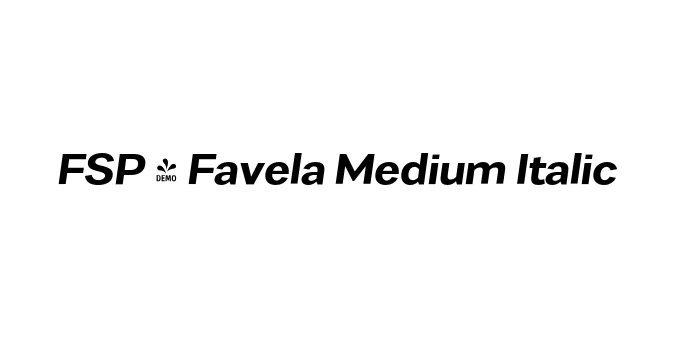
FSP - Favela Medium Italic
Designed by Mateusz Machalski
| Category | Sans-serif |
| Designer | Mateusz Machalski |
Favela Medium Italic is a sophisticated member of the Favela superfamily, a contemporary sans-serif typeface family designed by the acclaimed Mateusz Machalski. This specific weight offers a refined balance between geometric precision and humanistic warmth, making it highly versatile for modern design environments. The italic variant is meticulously crafted to maintain the font's structural integrity while adding a sense of motion and emphasis, which is ideal for highlighting key information in complex layouts.
The Favela family is widely recognized for its architectural qualities and its ability to function across both digital and print mediums. Originally inspired by the diverse aesthetic of urban environments, it bridges the gap between high-impact display typography and legible text settings. With its clean lines and open counters, Favela Medium Italic remains an essential tool for designers seeking a typeface that communicates both professionalism and creative flair.
FSP - Favela Medium Italic Best Uses
Perfect for creating a unique and modern visual identity for startups and tech companies.
Excellent for sub-headers, pull-quotes, and stylistic emphasis in magazines and digital journals.
Highly effective for bold headlines on posters and promotional banners where readability is key.
A great choice for hero sections and interactive elements that require a sophisticated touch.